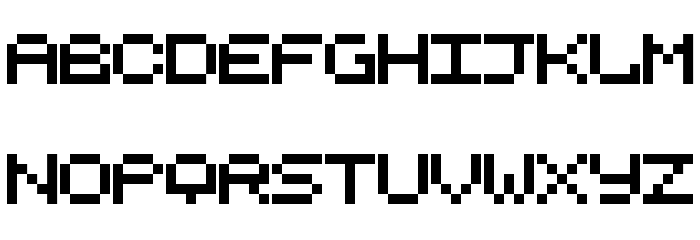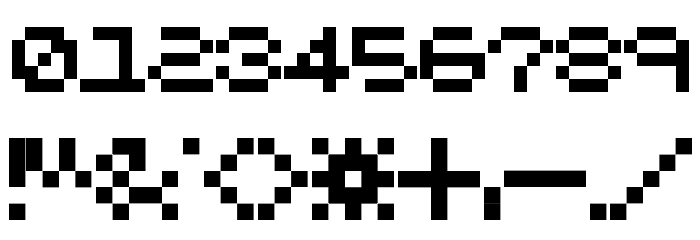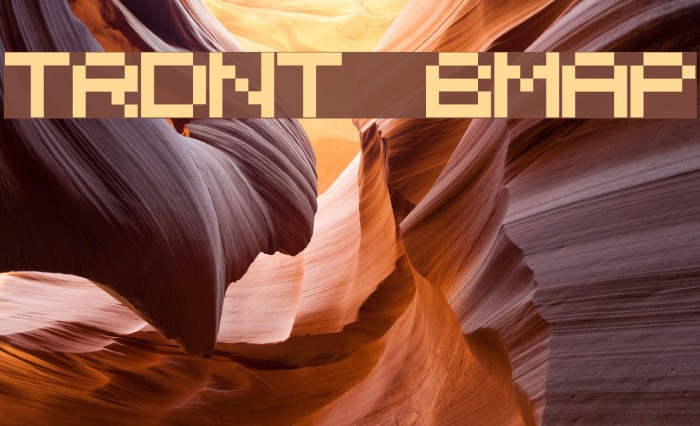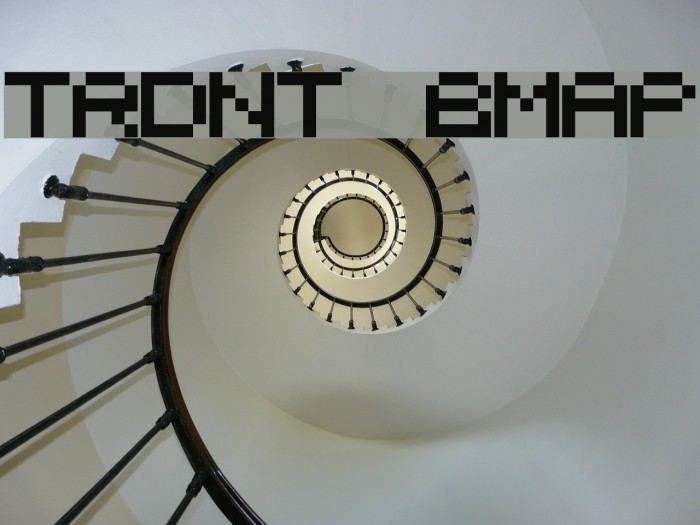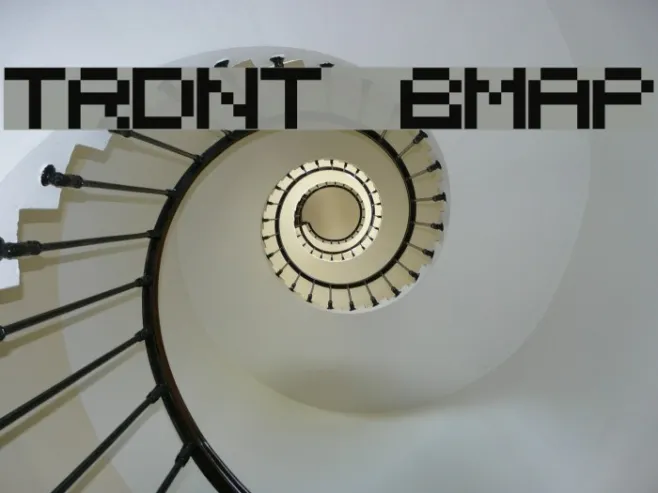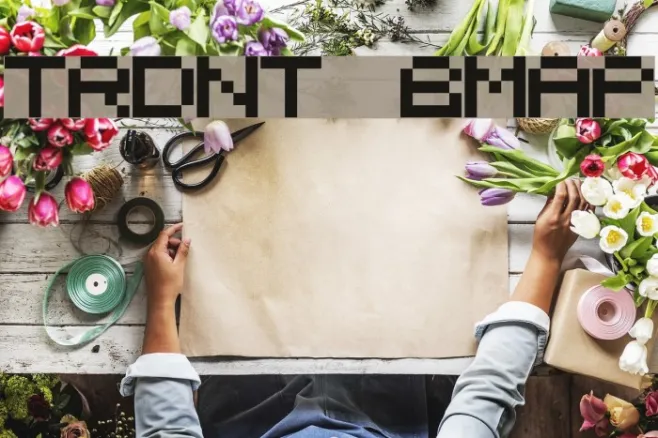
trdnt bmap Font
This font features a distinct pixelated design, reminiscent of early digital displays and retro video games. Each character is constructed with a grid-like pattern, giving it a blocky, geometric appearance. The uppercase and lowercase letters maintain a consistent height, contributing to a uniform look across the text. Numbers and special characters follow the same pixelated style, ensuring a cohesive visual identity. The font's simplicity and clarity make it highly legible, even at smaller sizes, while its nostalgic aesthetic evokes a sense of vintage computing.
A pixelated, retro-style font with a blocky, geometric design.
- Proposed Projects: Ideal for retro-themed designs, video game graphics, digital art projects, and any creative work that seeks to evoke nostalgia for early computing and gaming eras.
- Overall Style: Vintage
- Use Case: Logos, Headlines, Digital Art